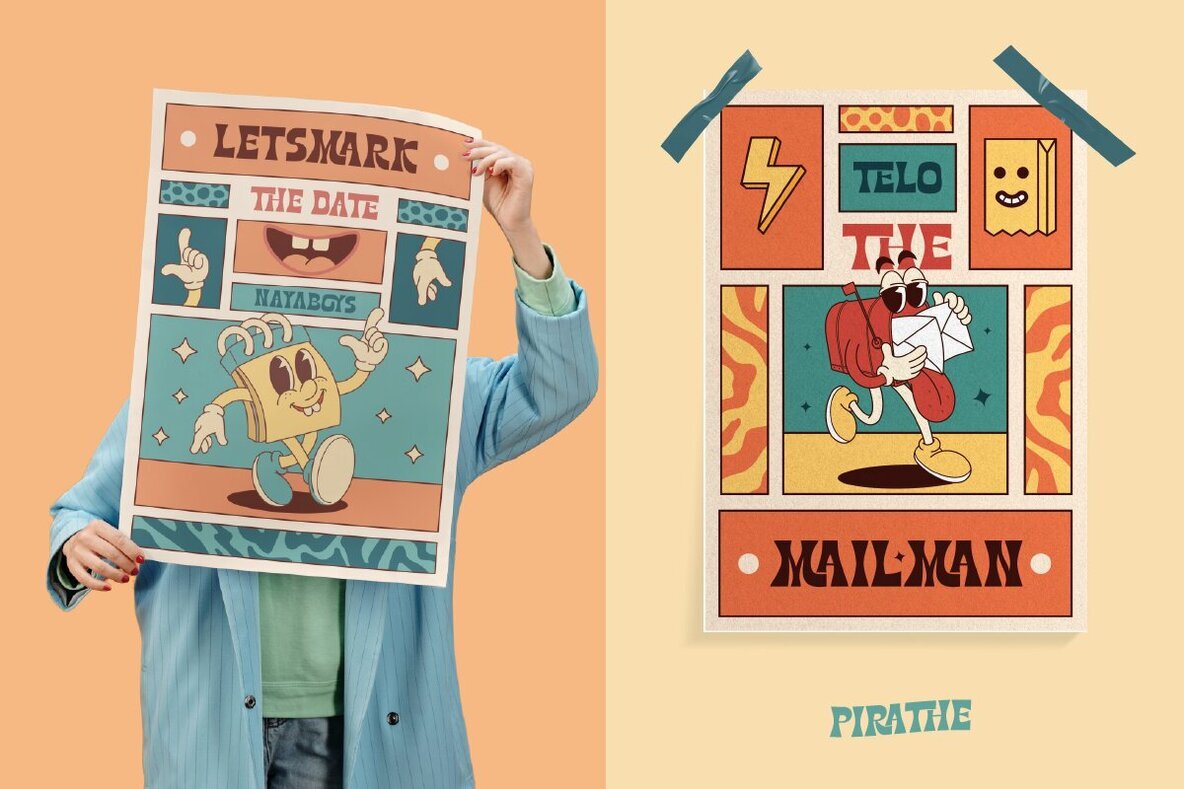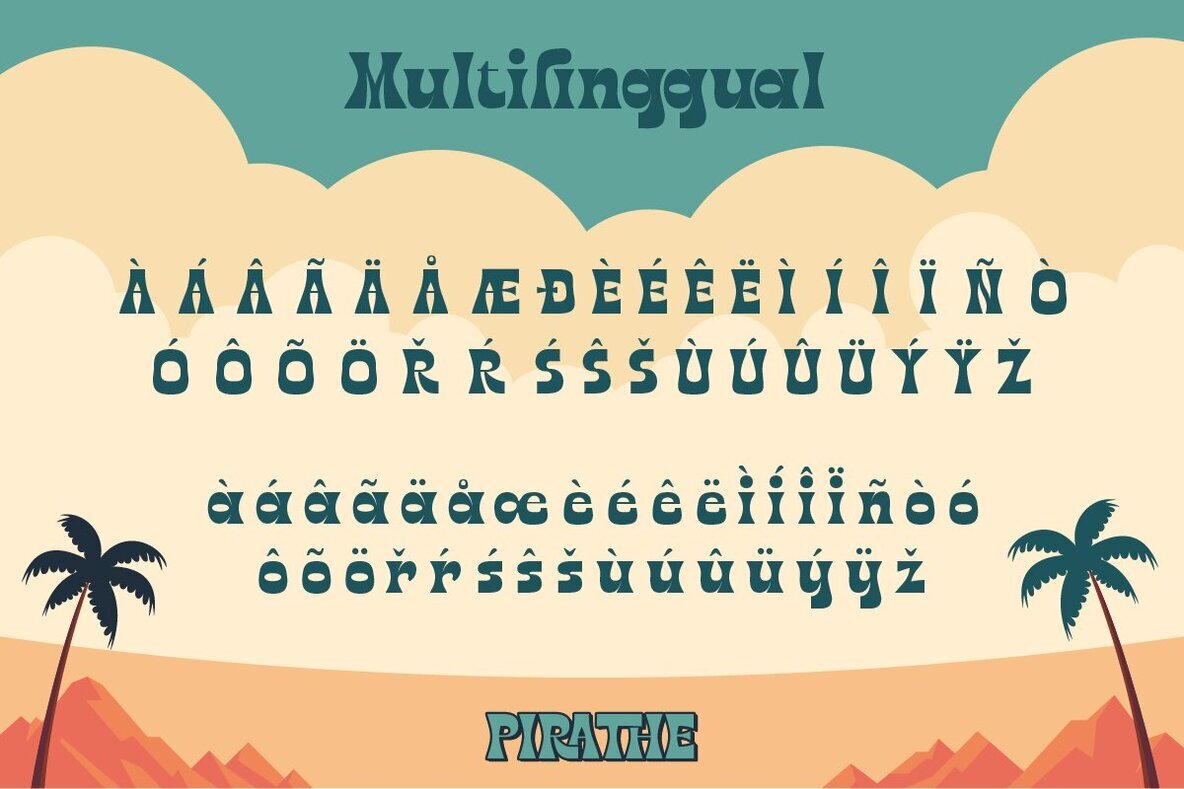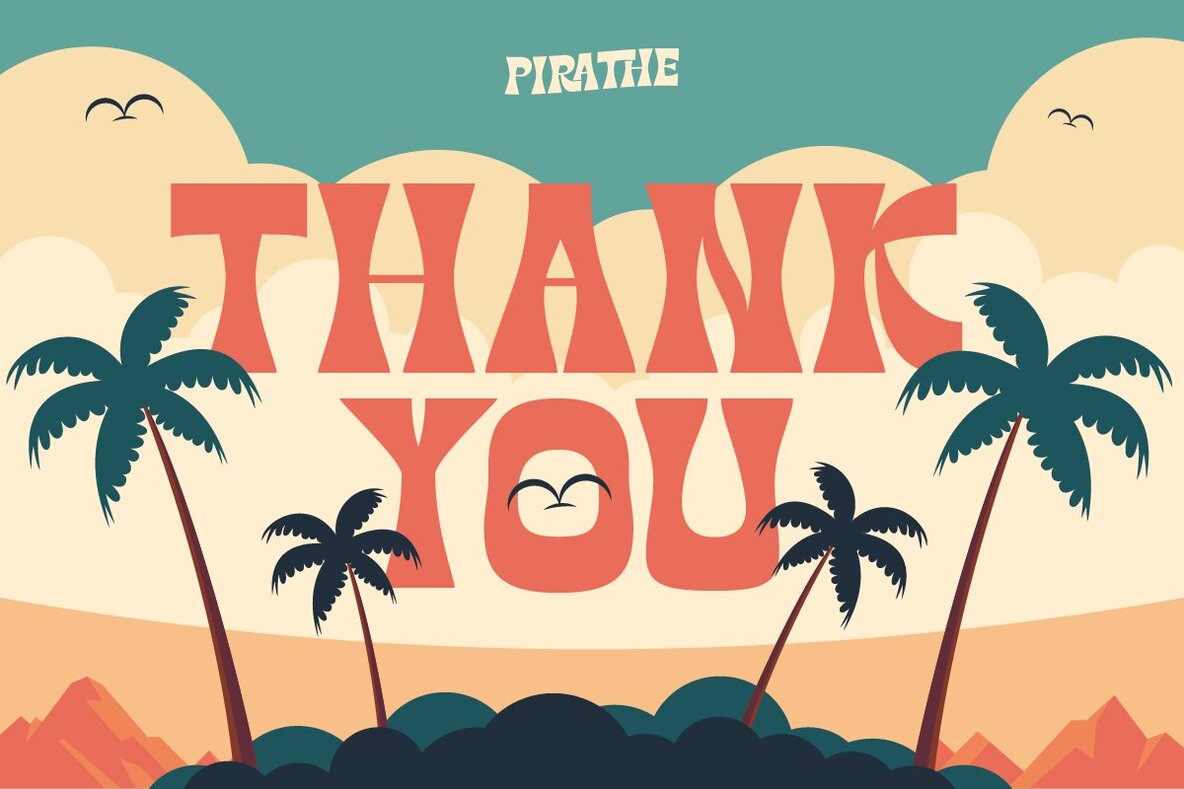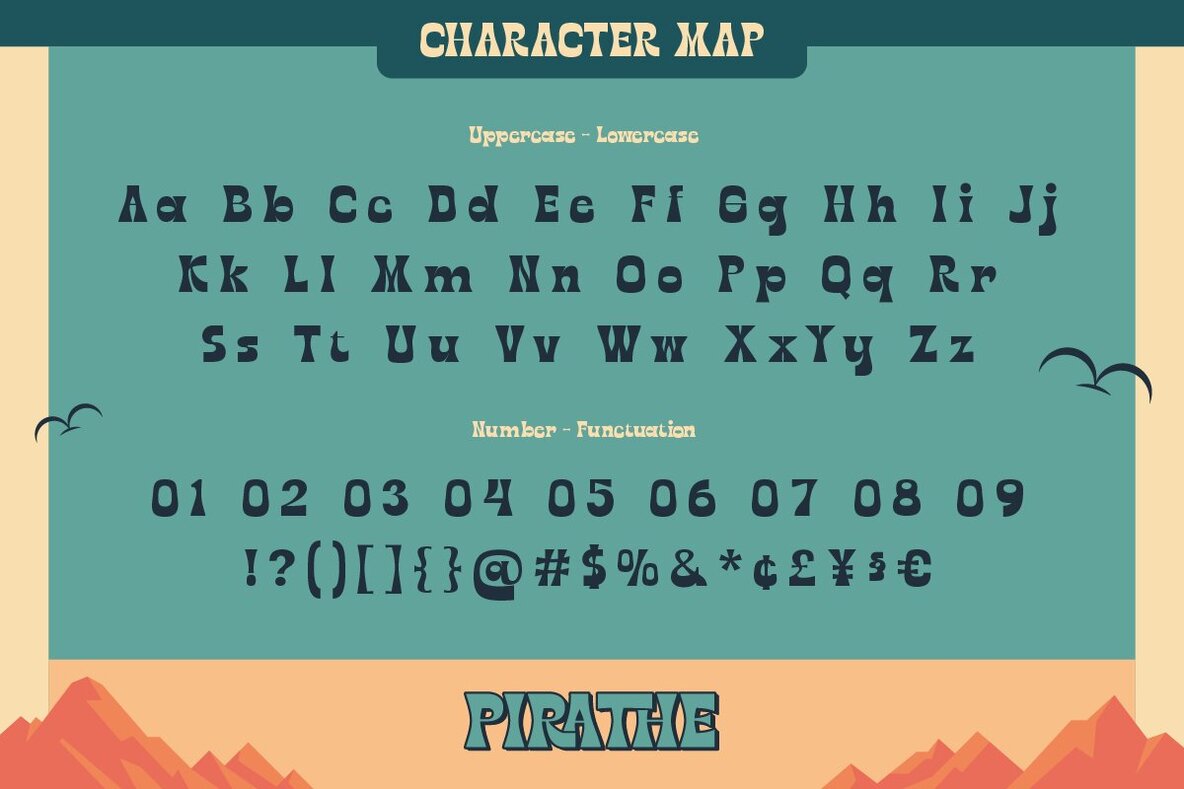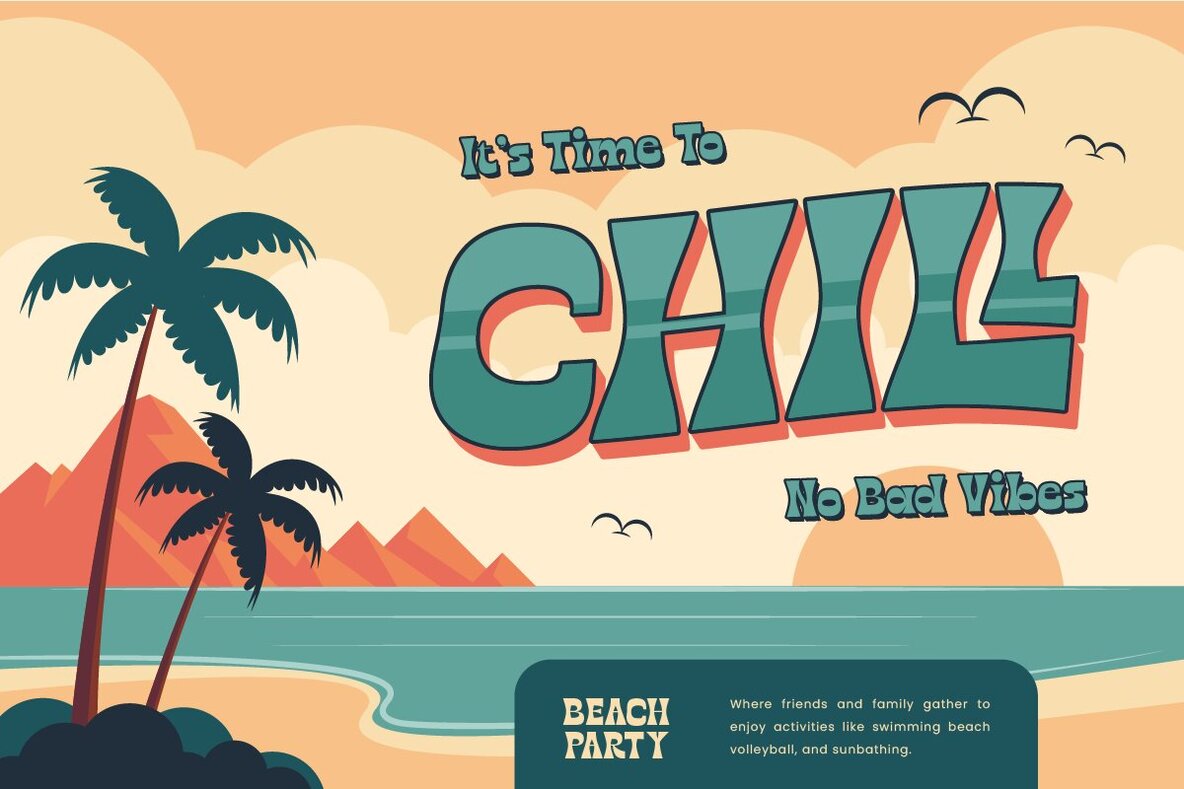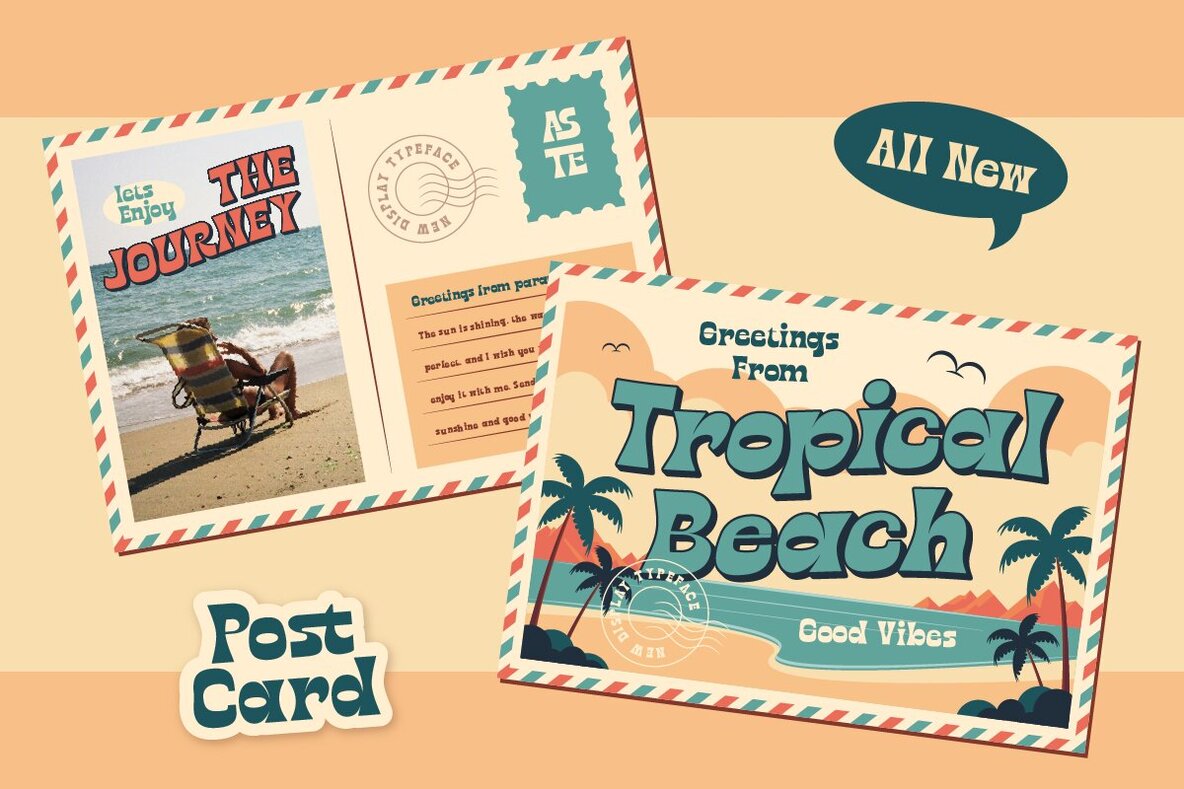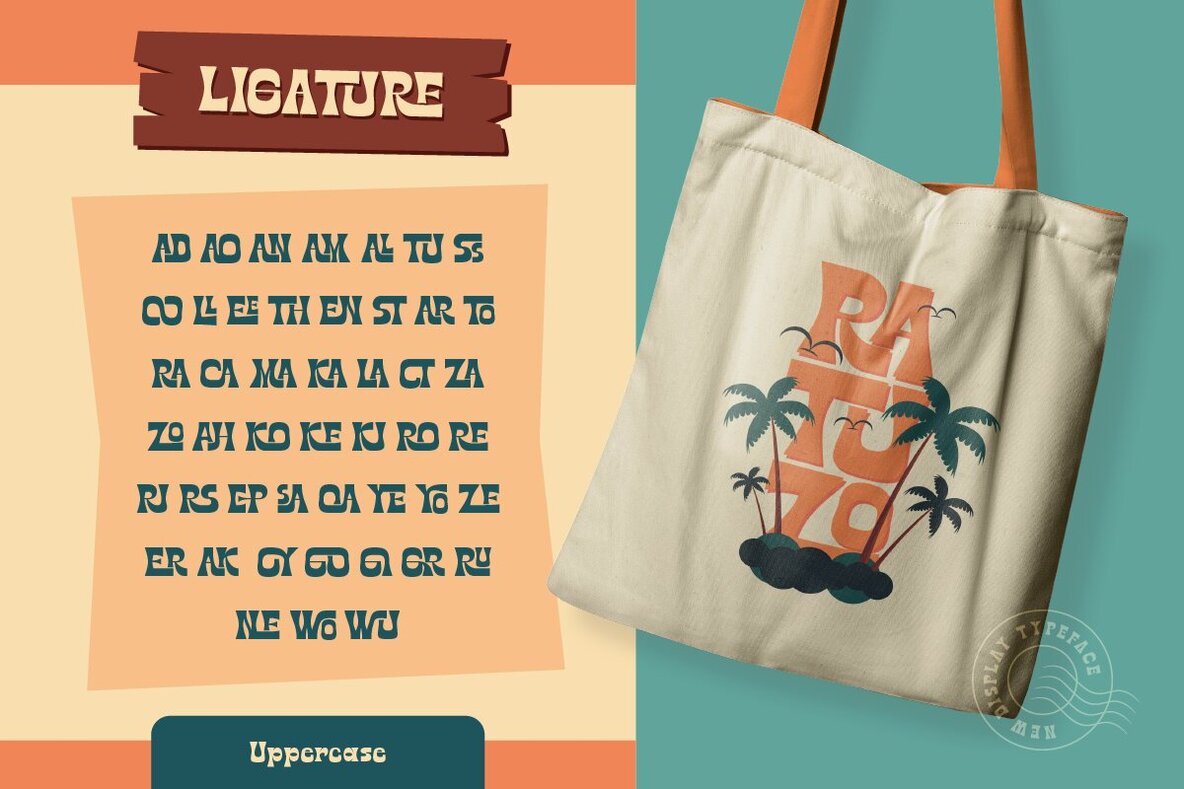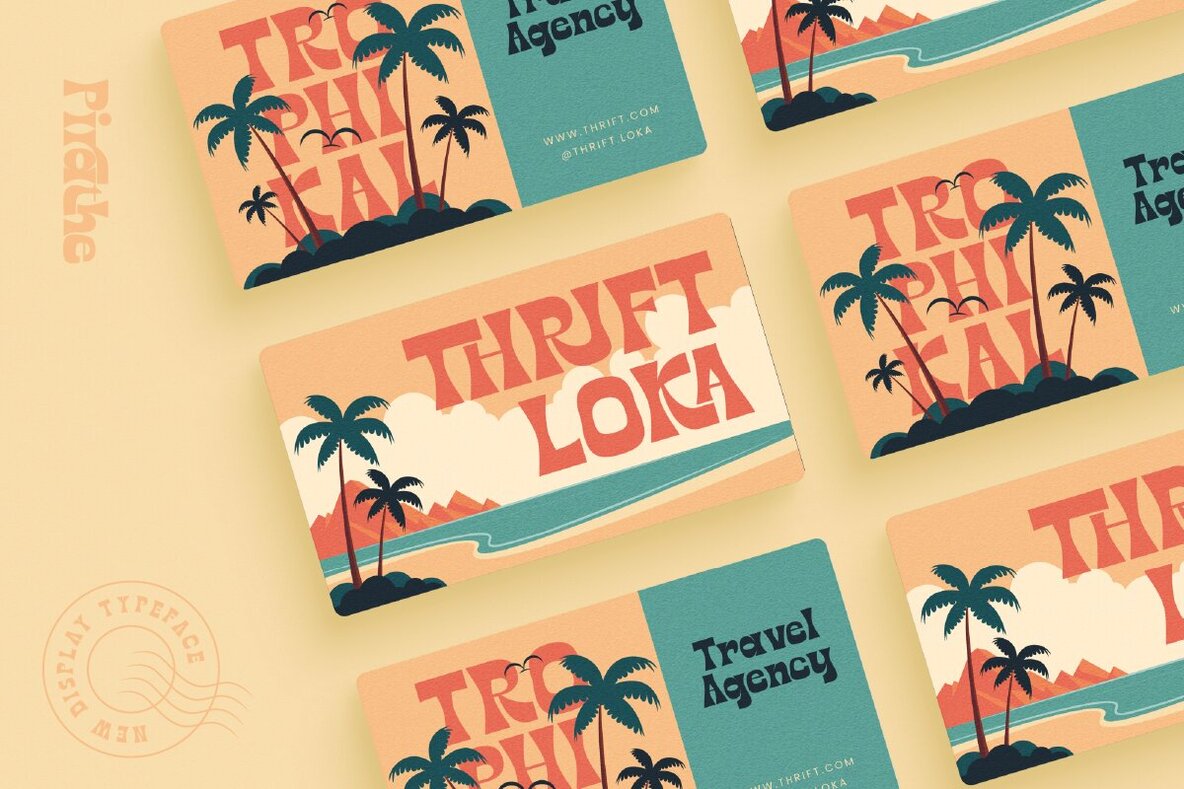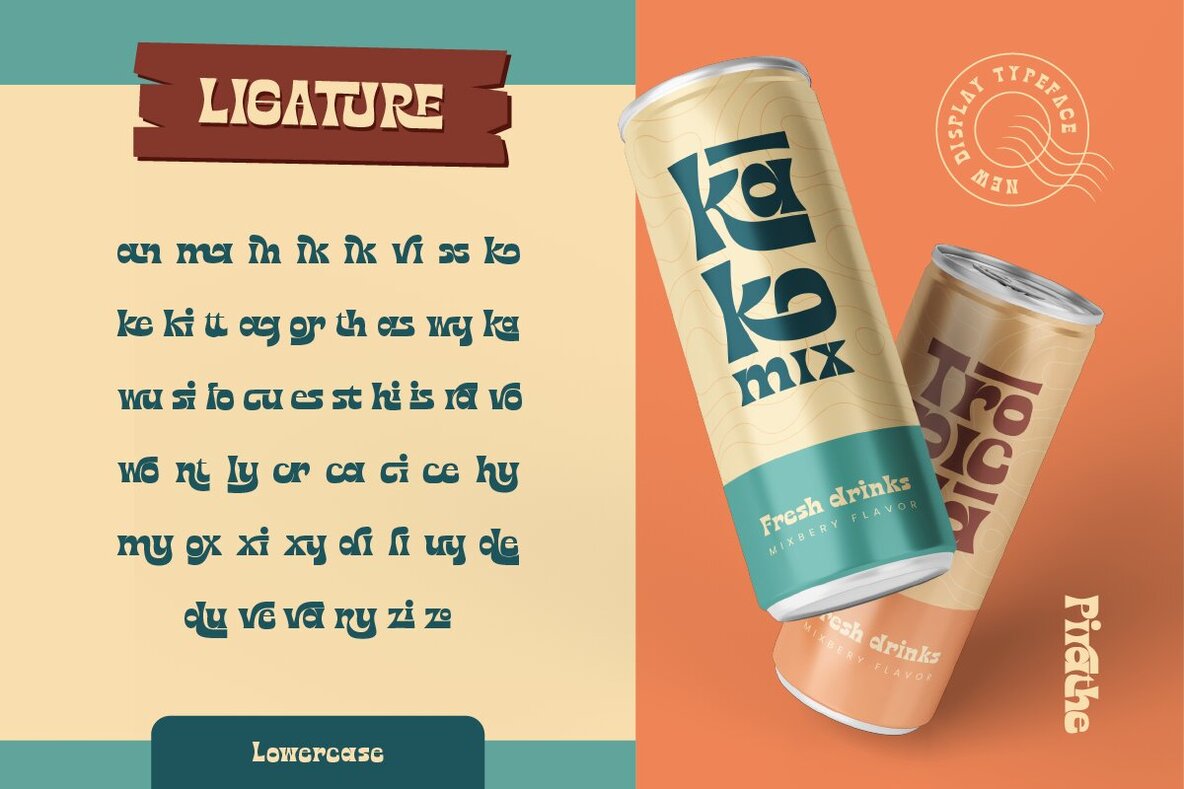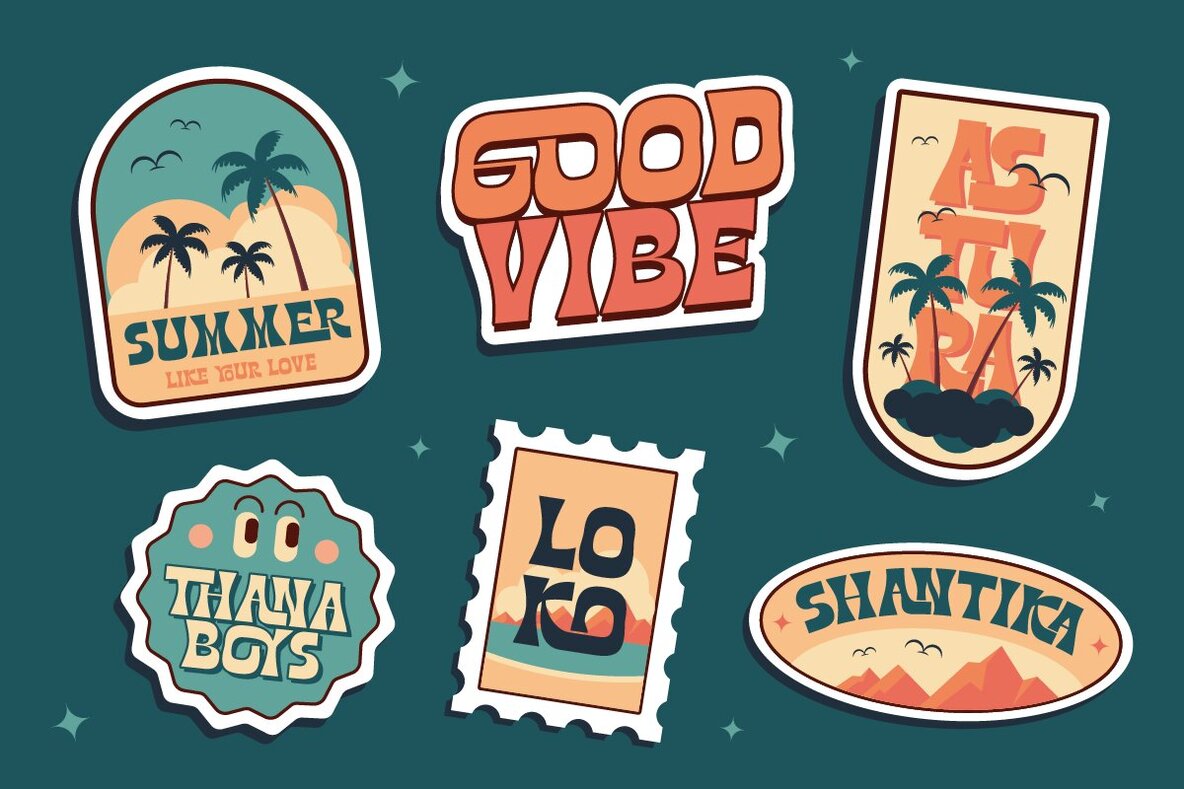
Pirathe Font
Pirathe Regular
Pirathe is a retro, fun, and groovy font that captures the positive vibes of the 1960s and 70s. It’s vibrant and dynamic, making it an excellent choice for any retro-themed design project.
- Complete A-Z set (uppercase & lowercase)
- Numerals
- Punctuation